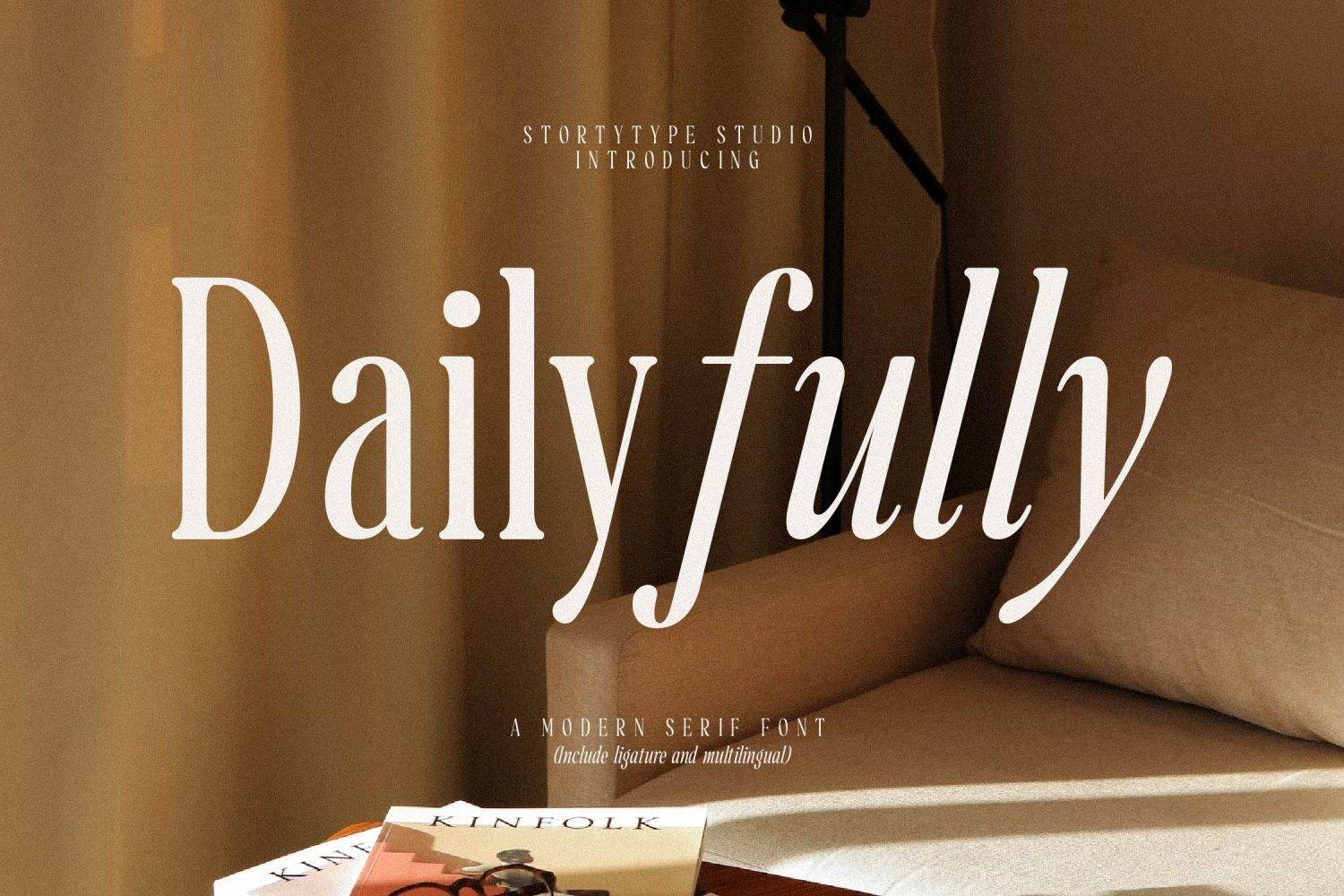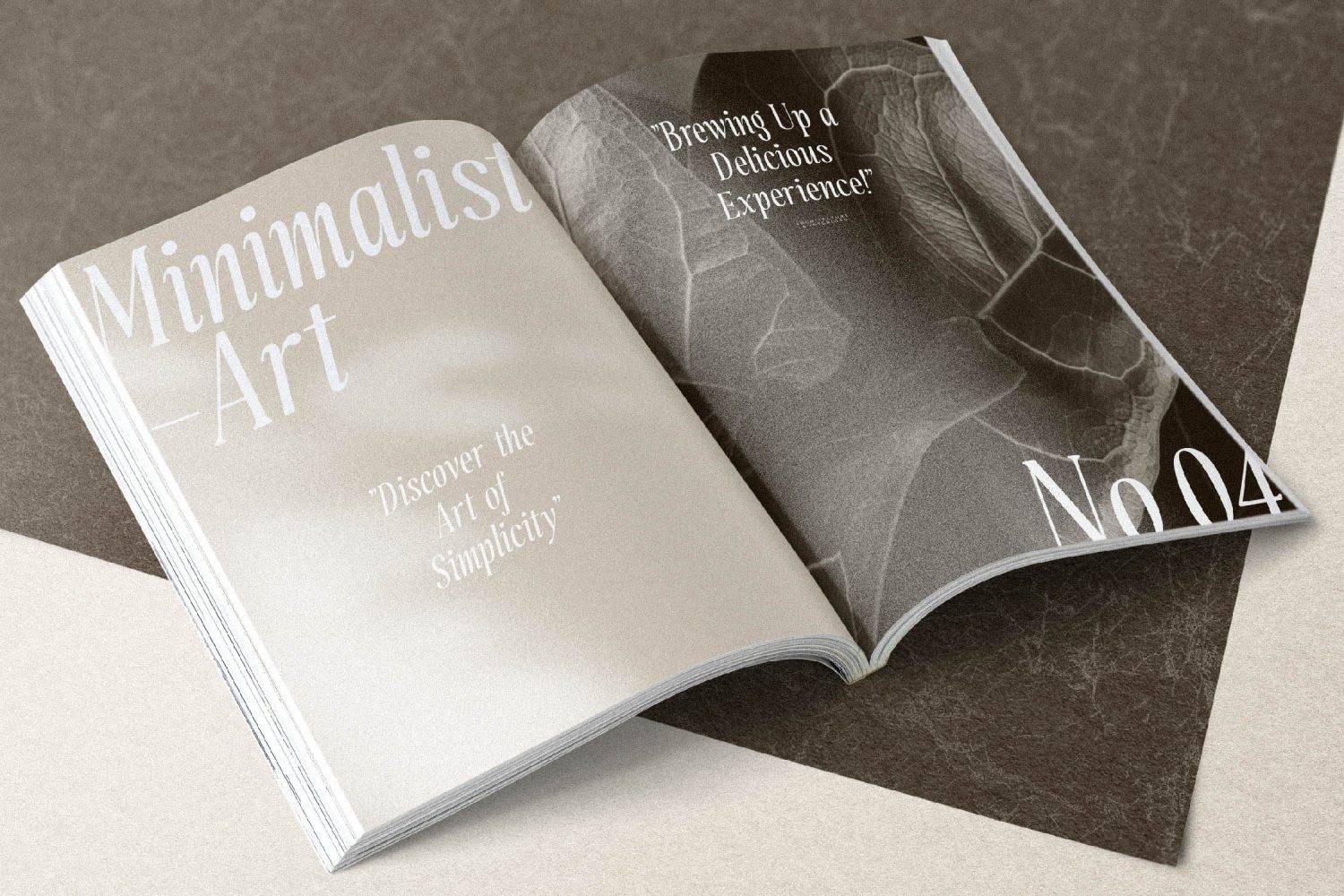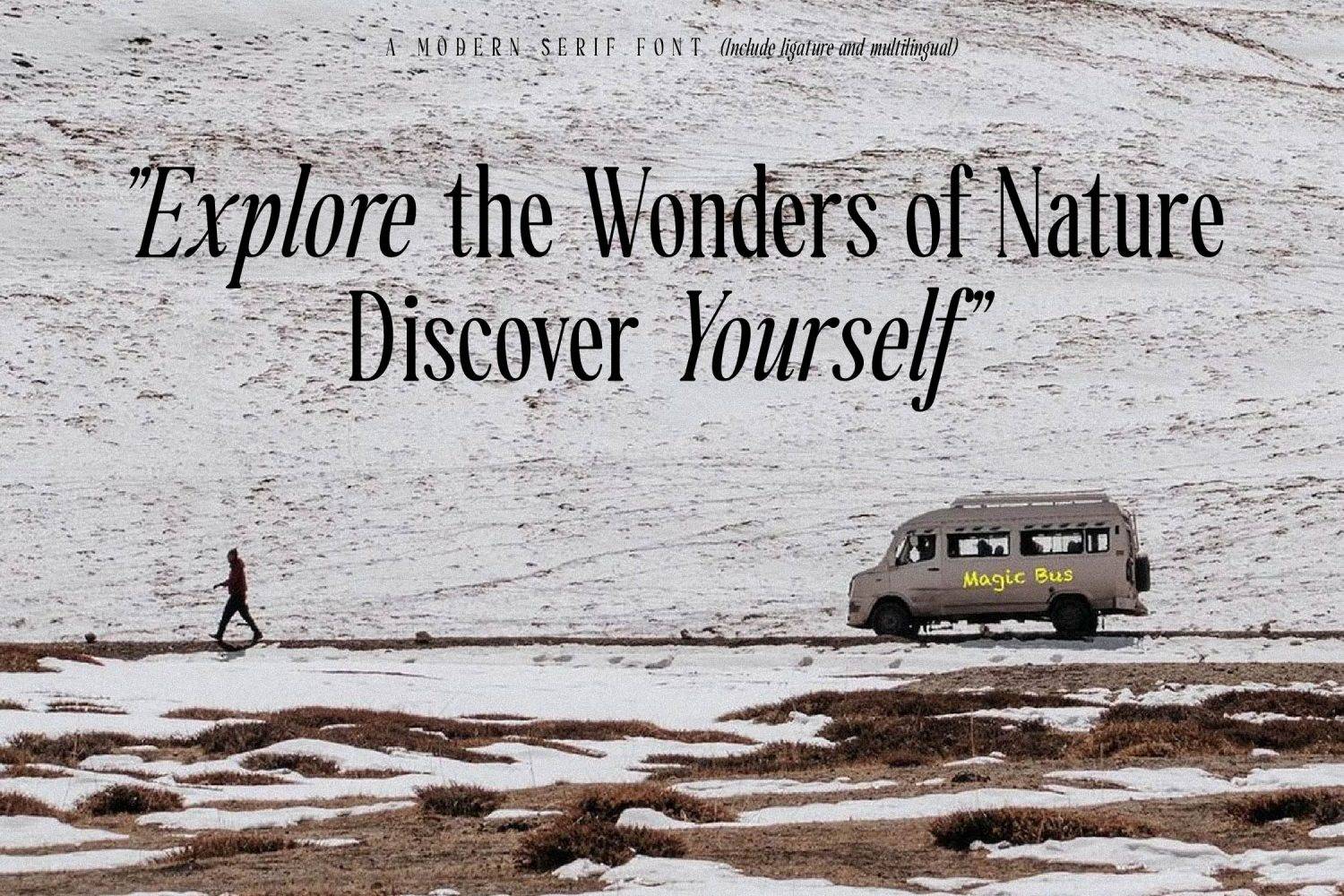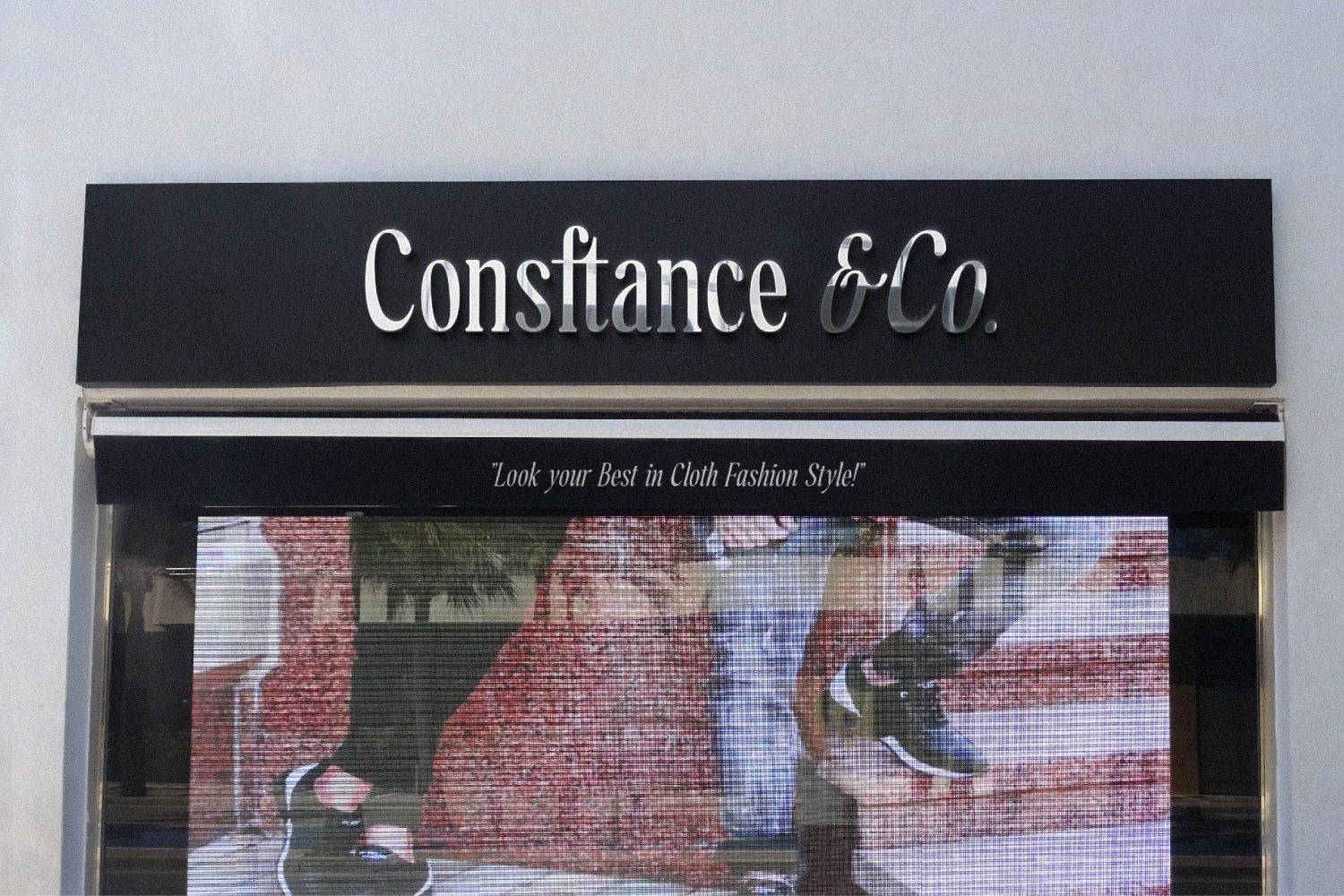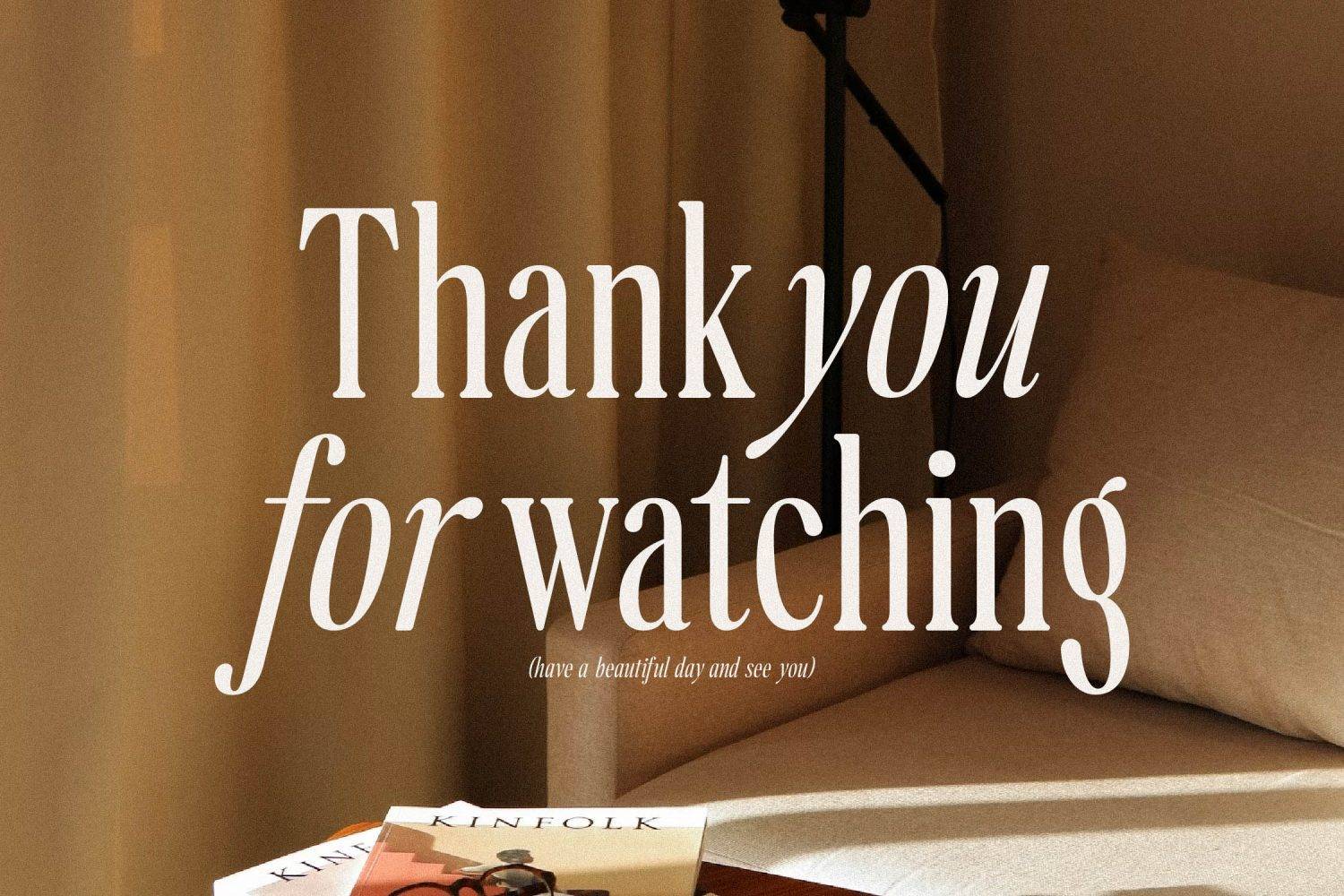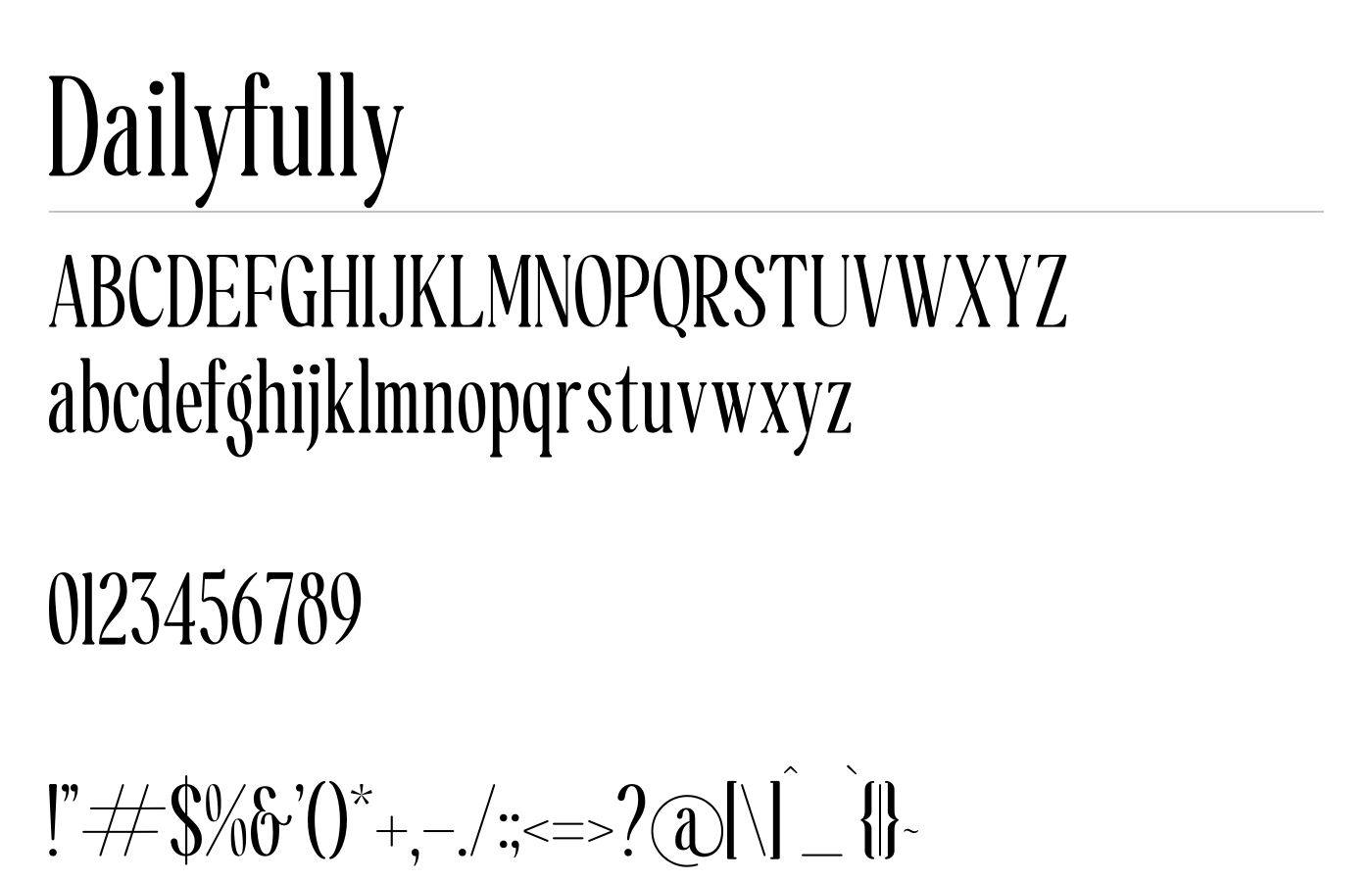
Dailyfully is an elegant serif font with a tall, narrow structure and high contrast between thick and thin strokes, giving it a refined and sophisticated appearance. Its delicate serifs and distinctive letterforms convey a classic yet modern feel, making it ideal for luxury branding, editorial headlines, and stylish packaging that demand a touch of grace and distinction.
Dailyfully Font
About Dailyfully Font